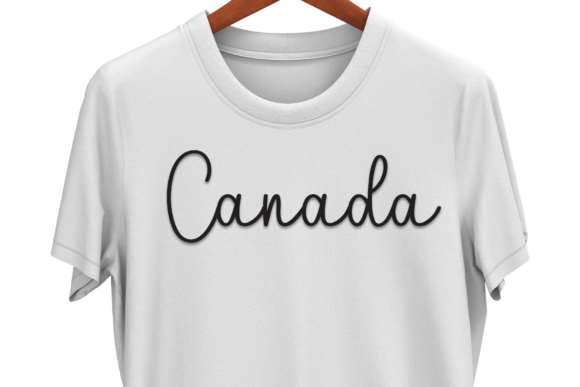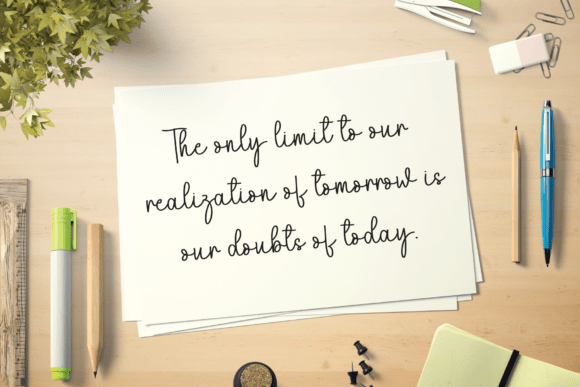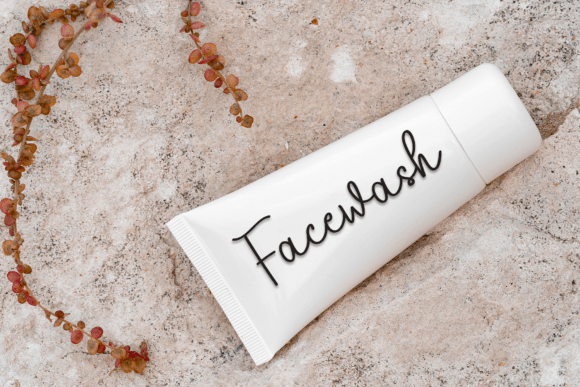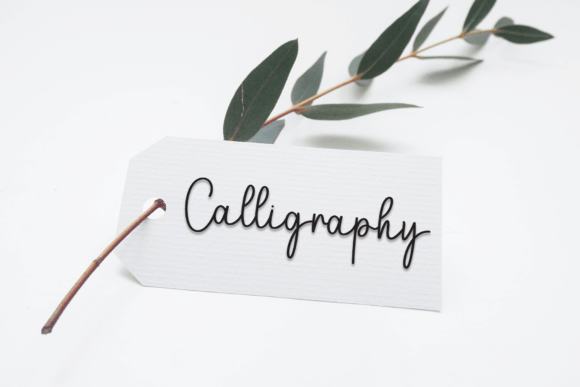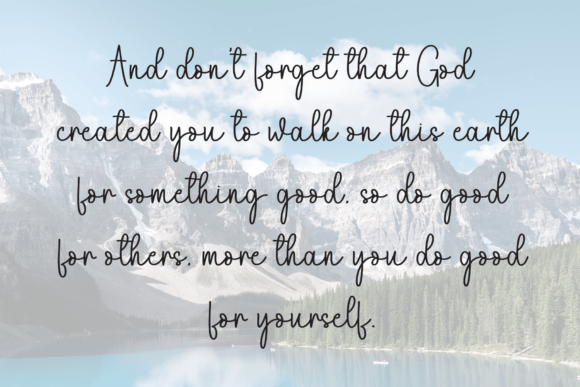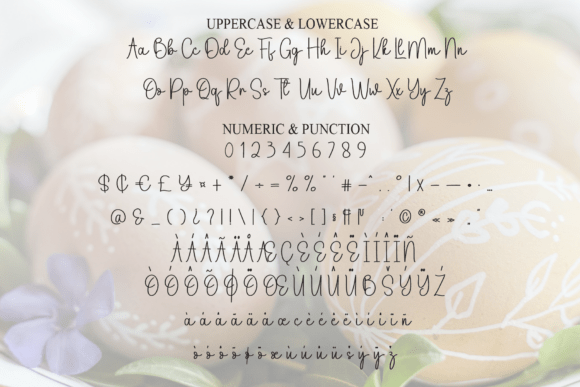
The Easter Font: A Stylish Handwritten Script to Elevate Your Designs
I’ll never forget the time I was working on a branding project for a luxury event planner, and I was struggling to find the perfect font to capture the essence of their high-end services. The client wanted something elegant, yet modern and playful. That’s when I stumbled upon the Easter font, and it instantly became the perfect fit. In this article, I’ll share my experience with this beautiful font, its features, and how to make the most of it in your designs.
First Impressions: What I Love About Easter Font
The Easter font is a stylish handwritten script that combines elegance with a modern flair. Here are some things I love about it:
- ✨ Elegant and refined: Easter font has flowing strokes and organic curves that bring warmth and sophistication to any project.
- ✅ Versatile: It’s ideal for branding, invitations, social media, and any other project that requires a personal, refined touch.
- 💫 Effortless charm: The font has a unique ability to add a touch of elegance without looking too formal or over-the-top.
Honest Review: A Few Quirks to Consider
While I adore the Easter font, there are a few quirks to consider:
- 🤔 Limited use in body text: Due to its elegant and cursive nature, Easter font might not be the best choice for long body text. It’s better suited for headings, titles, or short paragraphs.
- ⚠️ Kerning issues on some platforms: I’ve noticed that kerning can be a bit off on certain platforms, especially when using the font in all caps or with certain letter combinations.
The Story Behind Easter Font: Designer Inspiration
The Easter font was designed with the intention of creating a beautiful, elegant script that captures the essence of modern luxury. The designer aimed to create a font that would be perfect for high-end branding, invitations, and social media content. With its flowing strokes and organic curves, Easter font is a testament to the power of handwritten typography in modern design.